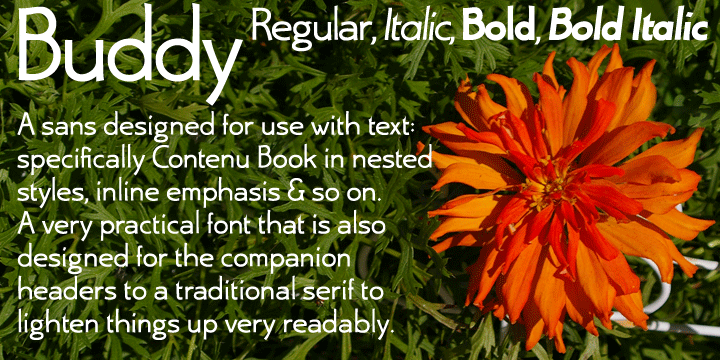
Buddy is the new companion sans for Contenu, the book font family designed for an upcoming book on book family design.
Originally, I called it Compagnon, but that seemed to pompous. Then I called it Aide, but that was too formal and dry. It’s a loose, free, easy to read sans, so when my wife suggested Buddy, it clicked. More…
This is the 4-font Buddy family of Regular, Italic, Bold, & Bold Italic. I made a new, more limited feature set for these fonts due to their designed usage, but there are still small caps, small cap figures, oldstyle figures, numerators, and denominators. The bold is closer to a black, and the italics are only slightly slanted obliques. If you need a strong black in caps, use the small caps of the bold.